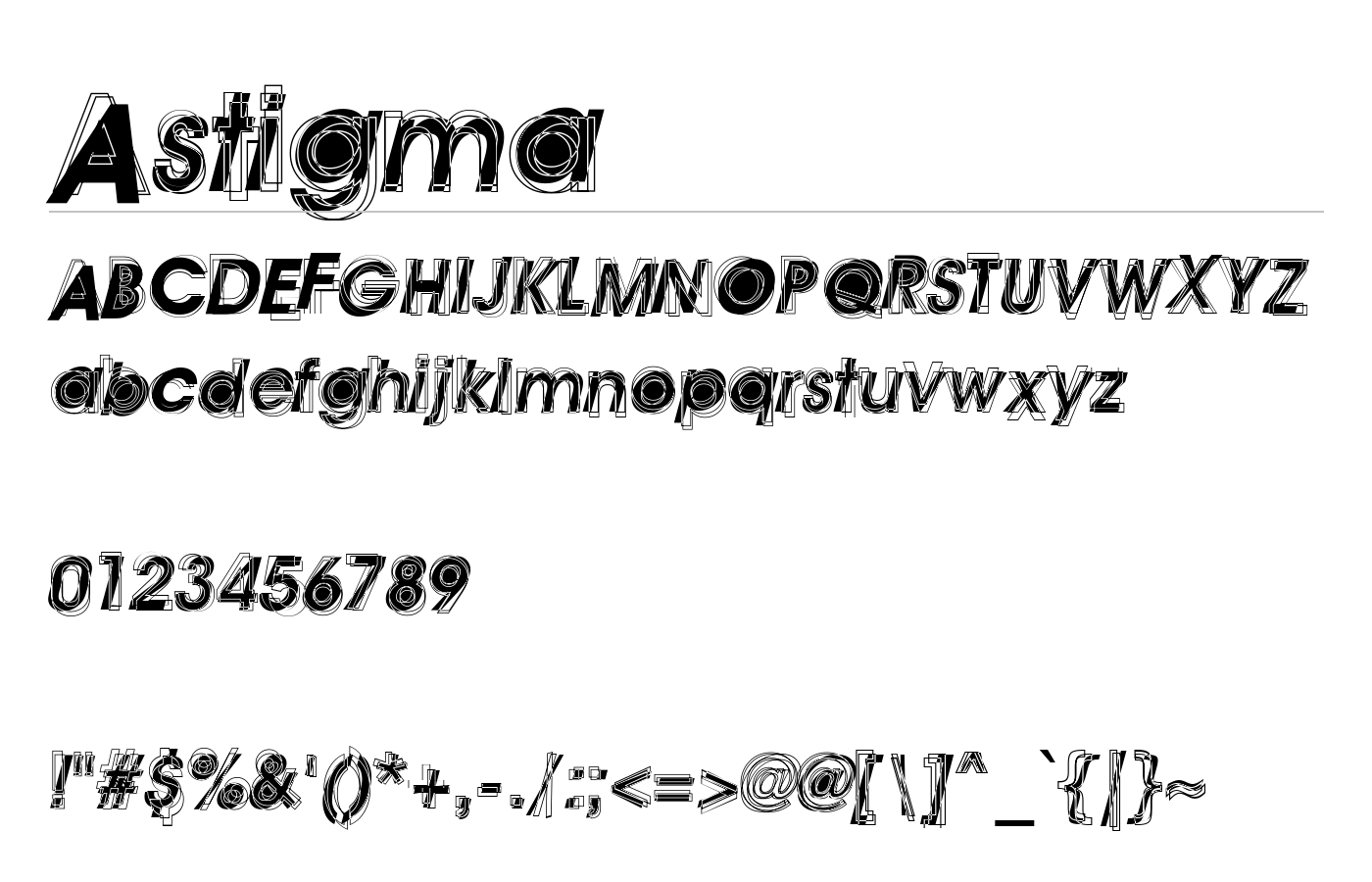
Astigma is a bold, sans serif typeface with a striking, layered outline effect that creates a dynamic, almost three-dimensional appearance. Its strong geometric shapes combined with irregular, sketch-like lines give it a modern, edgy personality perfect for attention-grabbing headlines, branding, and creative projects seeking a unique, artistic vibe. This font works best where bold visual impact and contemporary style are desired, making it ideal for posters, logos, and avant-garde design contexts.
Astigma Font